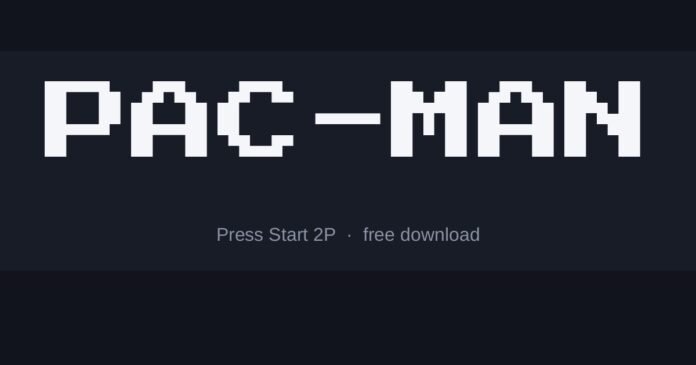
What font is the Pac-Man logo?
There are two answers. The on-screen text is a bitmap font built on an 8×8 grid — every letter made of square pixels, because that was the hardware.
The cabinet logo is different: soft rounded custom lettering with a bubble feel, which is what most people picture when they think of the brand.
The fonts here
- Press Start 2P reproduces the on-screen arcade bitmap almost exactly, including the chunky pixel grid.
- Silkscreen is a finer pixel face, more readable at small sizes and better for longer text.
- 1980 Portable has a handheld-console character, useful for a period feel that is not strictly arcade.
Where the style comes from
Arcade hardware of 1980 stored characters as small bitmaps, so letters had to fit an 8×8 grid of pixels. Every quirk of the shapes — the flat curves, the thick stems — is that constraint showing through.
This is one of the rare cases where a free font can be exact rather than merely close, because the original was a grid of squares that anyone can reproduce.
Setting it well
- Set the size to a multiple of the pixel grid, or the letters blur and lose the whole point
- Turn off font smoothing and any anti-aliasing where you can
- Yellow on black matches the screen; the cabinet logo used a very different rounded style, so do not mix the two
Is this the exact font used for Pac-Man?
Not exactly. The original lettering was custom drawn or is not publicly licensed, so the fonts here are close recreations. Press Start 2P is the nearest match we have found.